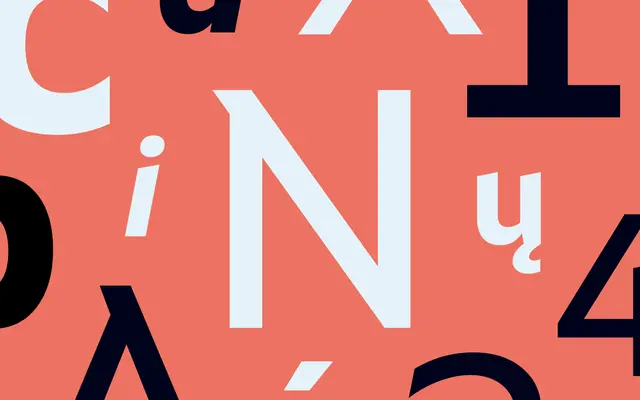
Setimo
Dalton Maag · Fernando Caro · 2017
Setimo specimen from Dalton Maag
A compact humanist sans by Fernando Caro tuned for clear hierarchy and readable longform support across three weights with italics.
A compact humanist sans by Fernando Caro that aims for a distinguished, authoritative tone without crowding the page. Six styles cover Light, Regular and Bold with matching italics, with proportions drawn so the family acts as a quiet support to surrounding design rather than competing with it. Reach for it in editorial systems, corporate identities and interfaces that want humanist warmth at smaller sizes.
Dalton Maag describe Setimo as a compact humanist sans that delivers a distinguished and authoritative tone, with a versatile family that helps readers navigate, absorb and understand a message.